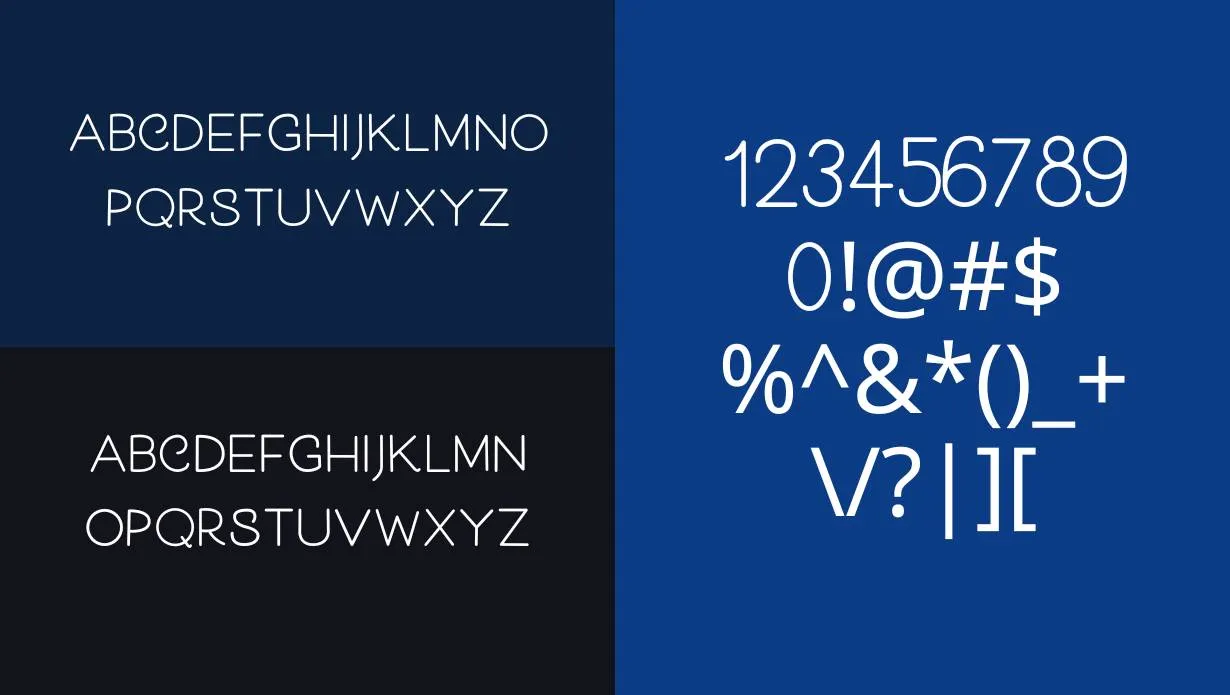
Holiday Travel Font embodies the wanderlust and joy of travel. With its playful and casual style, it’s a great choice for travel-related projects, such as travel agency brochures, postcards, or vacation-themed social media posts.
Let your audience feel the excitement of exploring new destinations with the Holiday Travel Font.
Holiday Travel Font Family